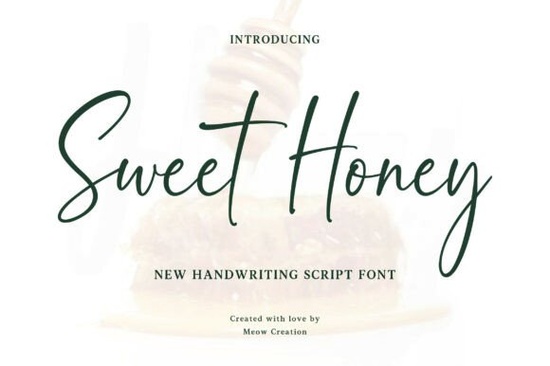
If you’ve been searching for a handwritten font that feels personal but still polished, Sweet Honey Font might be exactly what your next project needs. It’s got that effortless, signature-style flow clean enough to stay readable, but with just the right amount of character to make your designs feel warm and inviting. Whether you’re designing wedding invites, custom mugs, or branding materials for your small business, this font adapts without losing its charm.
What kind of projects work best with Sweet Honey?
This font shines when you want something that feels human not robotic or overly formal. Think:
- Wedding stationery place cards, menus, save-the-dates
- Social media graphics quotes, stories, promotional posts
- Merchandise T-shirts, tote bags, mugs with personalized messages
- Logo design especially for bakeries, florists, or lifestyle brands
- Packaging labels for candles, jams, skincare, or artisan goods
Its monoline strokes keep things tidy, so even at smaller sizes, your text won’t turn into a blur. That’s rare in script fonts, where detail often gets lost. If you’ve ever tried Wildberry or Honey Notes, you’ll notice Sweet Honey sits somewhere between playful and refined not too bubbly, not too stiff.
Is it easy to pair with other fonts?
Yes, and that’s one of its strengths. Since it’s a single-weight script, it doesn’t compete visually. Try pairing it with:
- A clean sans-serif (like Montserrat or Lato) for contrast
- A minimal serif for elegance think editorial layouts or premium packaging
- Another script like The Secret if you’re layering styles for texture
Just avoid pairing it with another heavy script they’ll fight for attention. Sweet Honey works best as the star of the show, supported by simpler fonts that let it breathe.
How does it compare to other wedding-style scripts?
If you’ve browsed wedding script fonts before, you know many lean heavily into flourishes and curls. Sweet Honey keeps things more grounded. It’s graceful without being fussy which is why it’s also great for everyday branding, not just special occasions. For something with more drama, you might look at Wedding Beauty. But if you want versatility? Sweet Honey’s your go-to.
Any tips for getting the most out of this font?
Here’s what designers who’ve used it recommend:
- Adjust letter spacing slightly sometimes scripts benefit from a tiny bit more breathing room between characters.
- Use all caps sparingly this font was designed to flow naturally in lowercase and mixed case. All caps can break the rhythm.
- Try it over textured backgrounds because of its clean lines, it holds up well against watercolor washes, kraft paper, or linen textures.
- Test readability at small sizes while it’s legible, always preview how it looks scaled down, especially for packaging or tags.
Who should skip this font?
If you’re working on something that needs ultra-modern, geometric precision like tech branding or minimalist UI this probably isn’t the right fit. It’s made for warmth, not sterility. Also, if you’re looking for multiple weights or stylistic alternates built into the font file, you might want to explore options with more OpenType features. Sweet Honey is intentionally simple that’s part of its appeal.
Bottom line: if you want a script font that feels like it was written by hand but still behaves like a professional tool give Sweet Honey a try. It’s flexible enough for crafters, reliable enough for pros, and charming enough to make even basic quotes feel special.